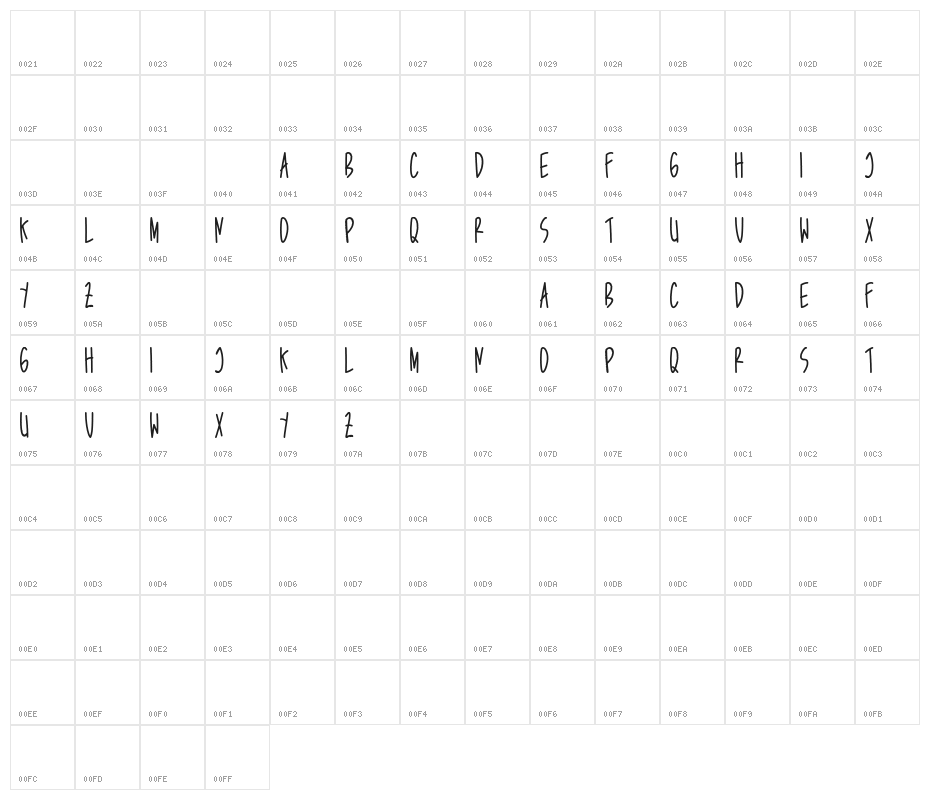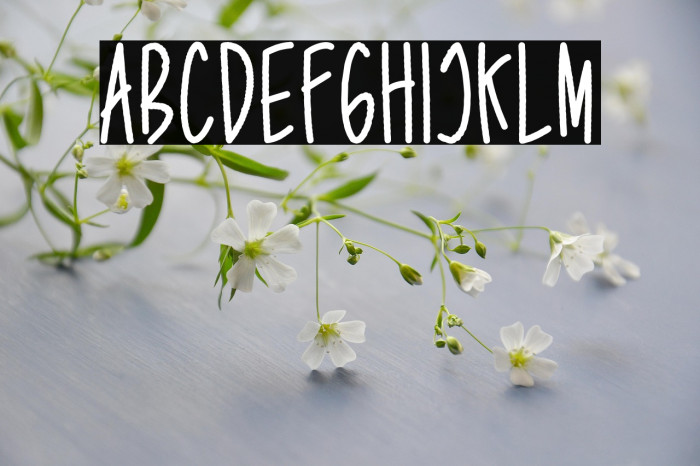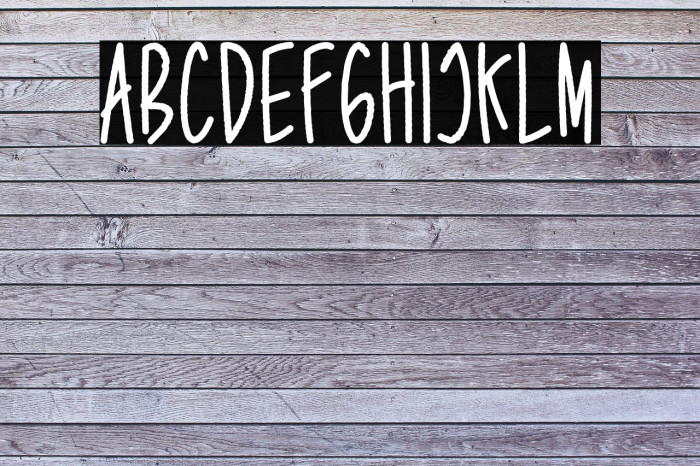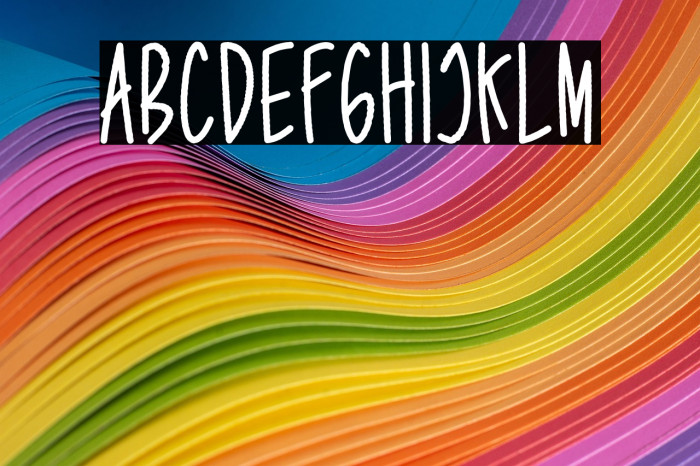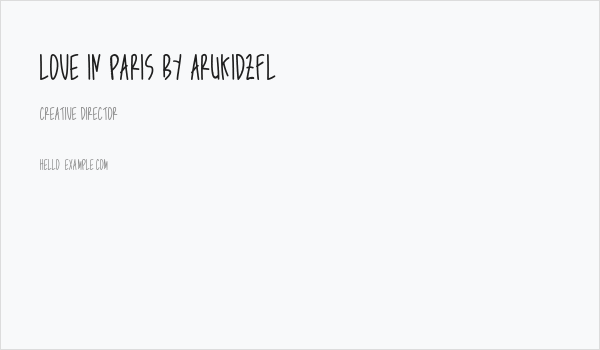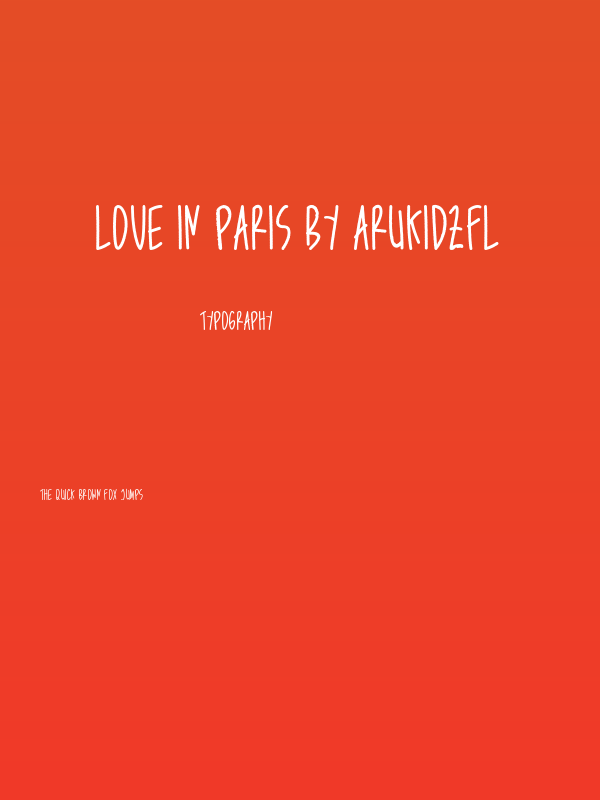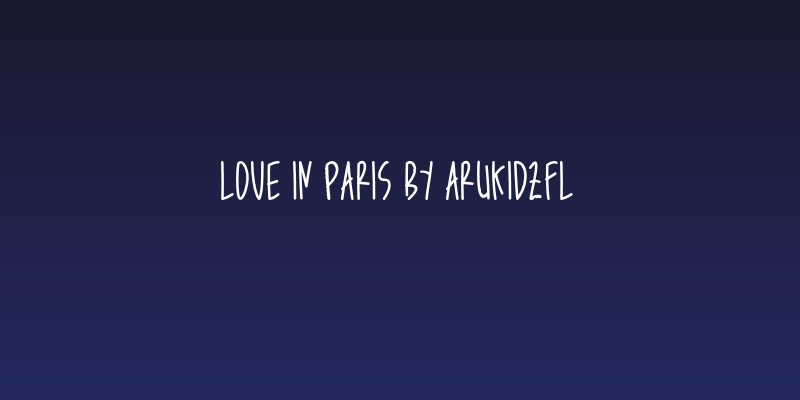
Love in Paris by arukidzfl Font
Love in Paris by arukidzfl Description
This font features a playful and casual handwritten style, characterized by its slightly uneven strokes and informal appearance. The letters are tall and narrow, with a consistent height across both uppercase and lowercase characters. The strokes are smooth and slightly curved, giving the font a friendly and approachable feel. The spacing between characters is relatively tight, which adds to the cohesive look of the text. This font is ideal for projects that require a personal touch, such as greeting cards, invitations, or social media graphics. Its unique style makes it stand out, while still maintaining readability.